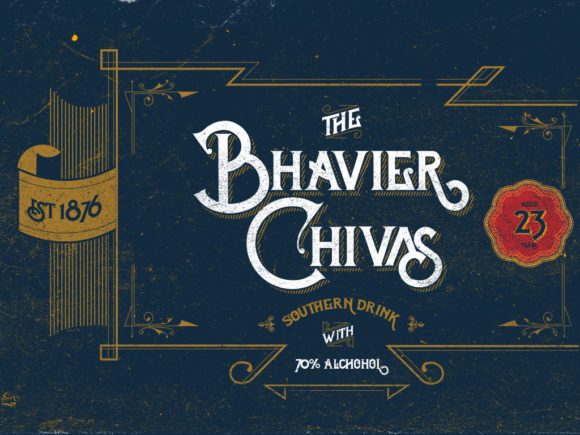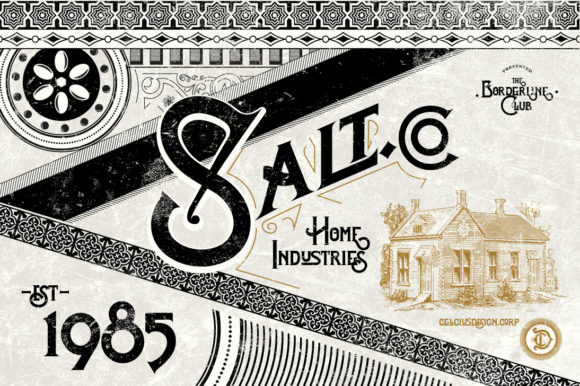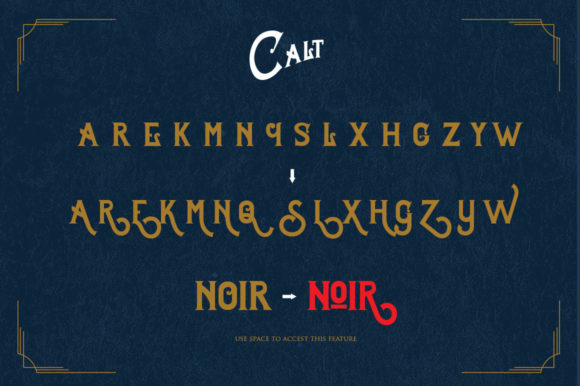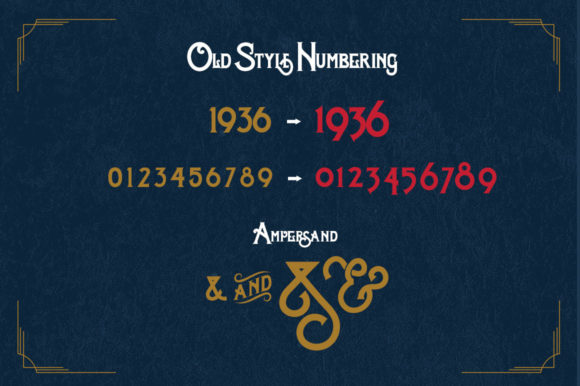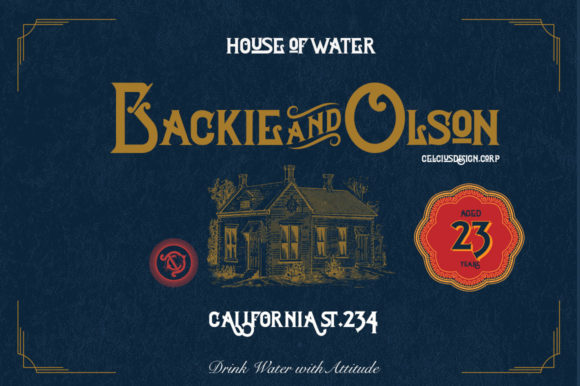
Celestial Font: Elevate Your Designs with a Vintage Flair
In the world of typography, fonts play a crucial role in conveying the tone and personality of a design. For designers and crafters looking to add a touch of nostalgia and style to their projects, the Celestial Font is an excellent choice. This vintage-styled, daring display font is crafted to give your headlines and logotype projects a stylish touch, making it perfect for those seeking to make a statement.
The Essence of Celestial Font
Celestial is a bold and dynamic font that exudes confidence and strength. Its unique, vintage-inspired design reads as strong, confident, and dynamic, making it ideal for headlines, logotypes, and other display purposes. The font’s nostalgic character is sure to add a touch of classic charm to your designs, setting them apart from the ordinary.
Key Features of Celestial Font
- Vintage Flair: Celestial Font boasts a unique, vintage-inspired design that adds a touch of nostalgia to your projects.
- Daring Display Font: This font is specifically crafted for display purposes, making it perfect for headlines, logotypes, and other attention-grabbing applications.
- Strong and Confident: Celestial Font reads as strong, confident, and dynamic, ensuring your designs make a lasting impression.
- Nostalgic Character: The font’s classic design adds a touch of nostalgia to your projects, making them stand out from the crowd.
Celestial Font is an excellent choice for designers and crafters looking to elevate their projects with a stylish touch. Whether you’re working on a branding project, creating a logo, or designing a poster, this font is sure to make a statement. Its versatility and unique design make it suitable for a wide range of applications, from digital designs to print materials.
Tips for Using Celestial Font
To get the most out of Celestial Font, consider the following tips:
- Use it as a Headline Font: Celestial Font is perfect for headlines and titles, where its bold and dynamic design can make a lasting impression.
- Pair it with a Simple Font: For body text, pair Celestial Font with a simple, easy-to-read font to create a striking contrast.
- Experiment with Colors: Celestial Font looks great in bold colors, so don’t be afraid to experiment and find the perfect hue for your design.
In conclusion, Celestial Font is a stylish and versatile font that’s perfect for designers and crafters looking to add a touch of nostalgia and style to their projects. Its unique, vintage-inspired design makes it ideal for headlines, logotypes, and other display purposes. With its strong and confident personality, Celestial Font is sure to elevate your designs and make them stand out from the crowd.